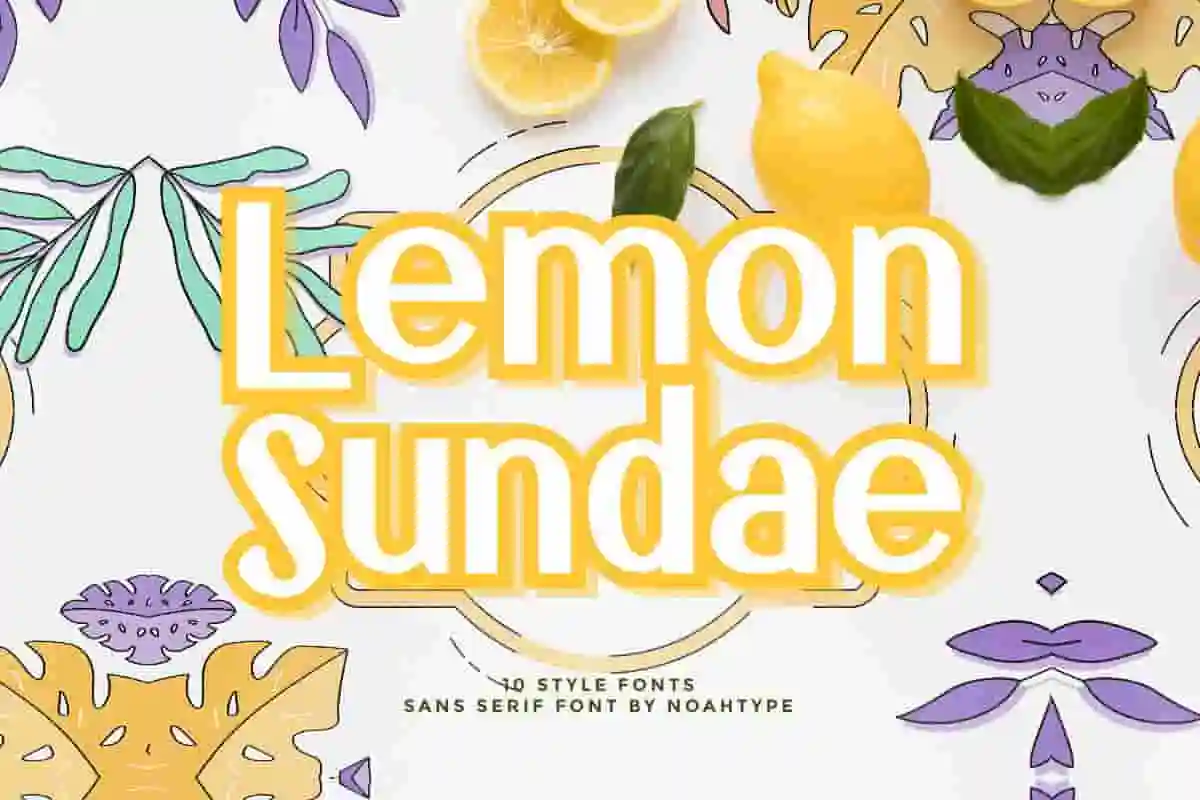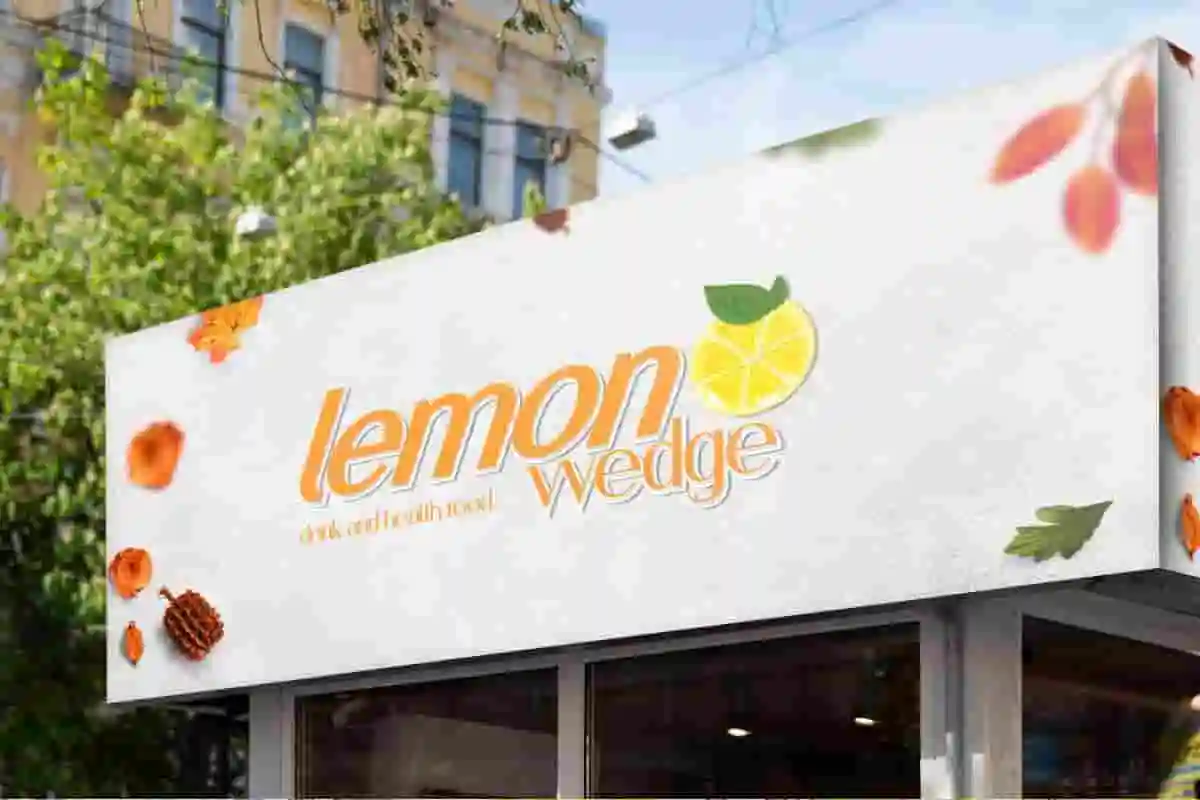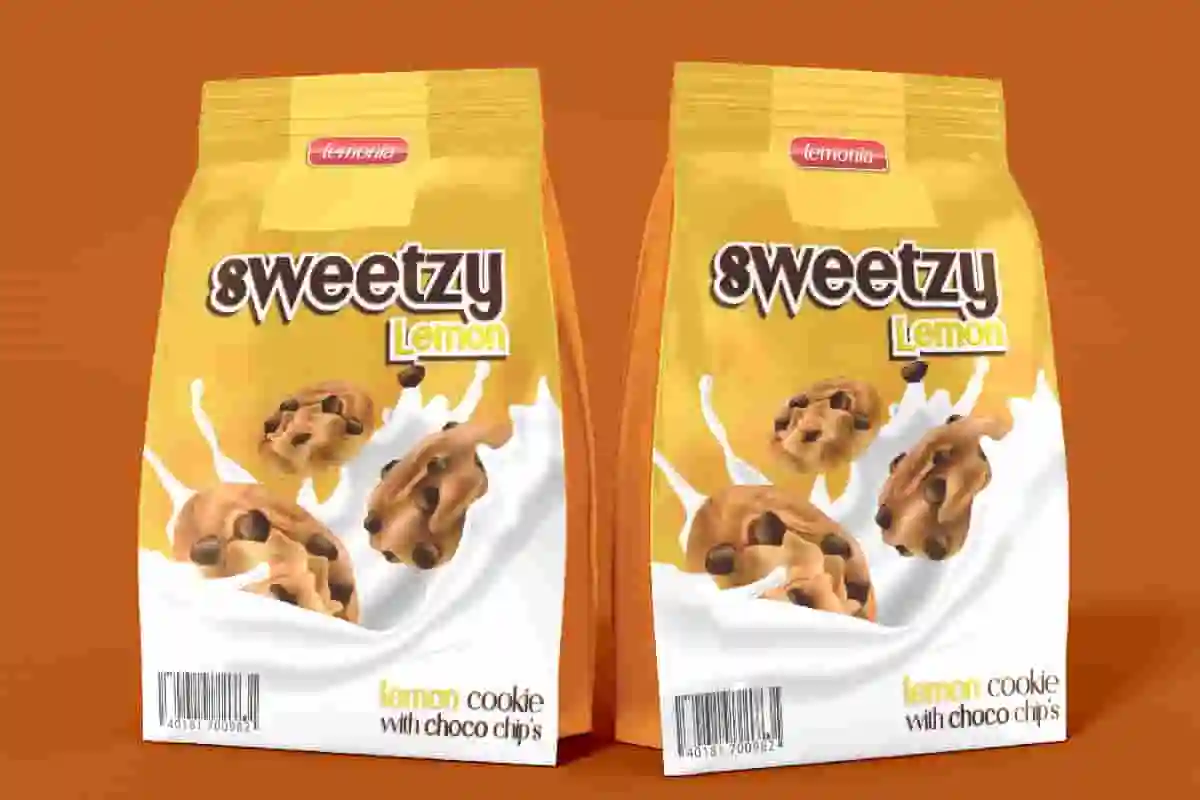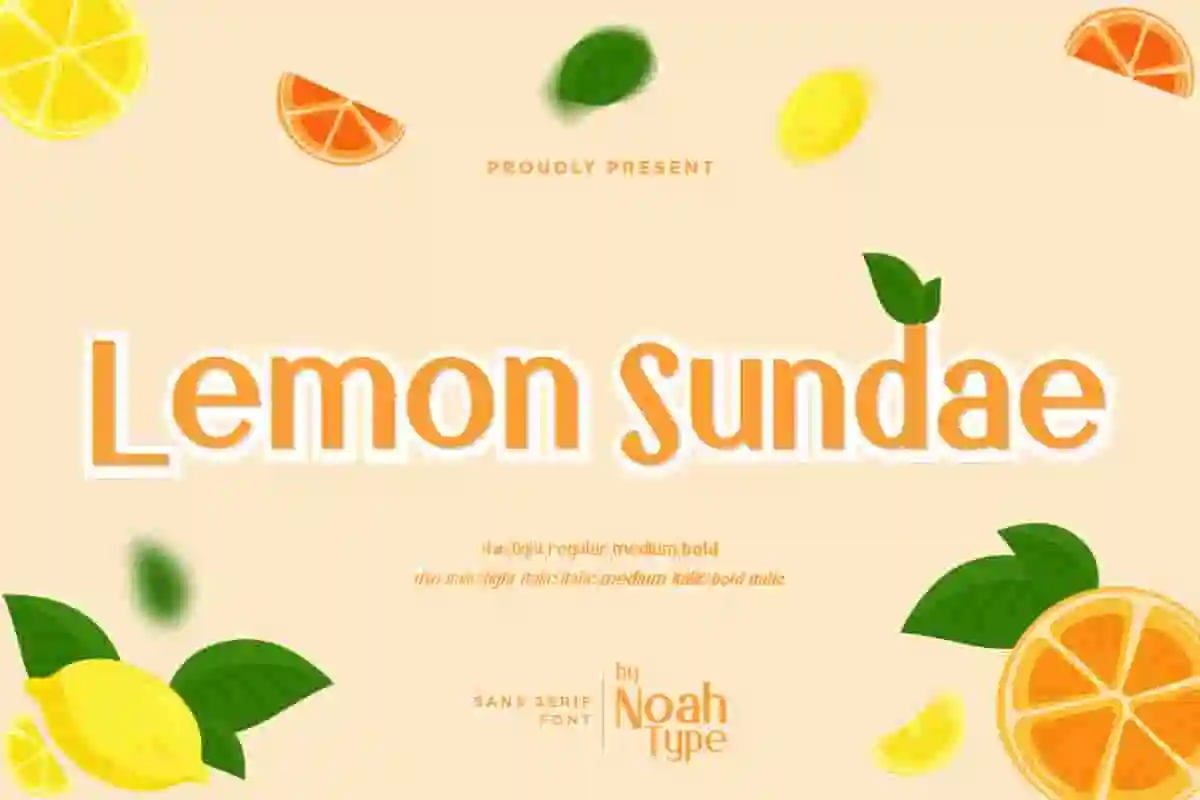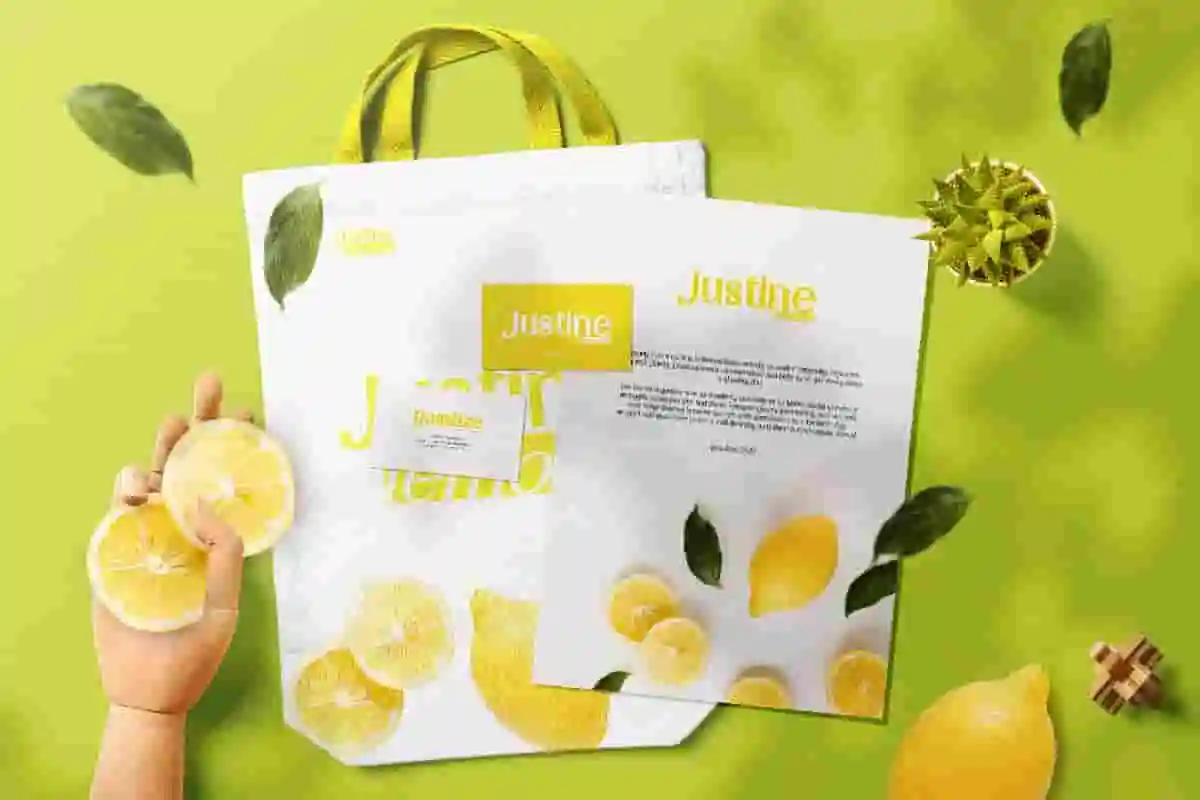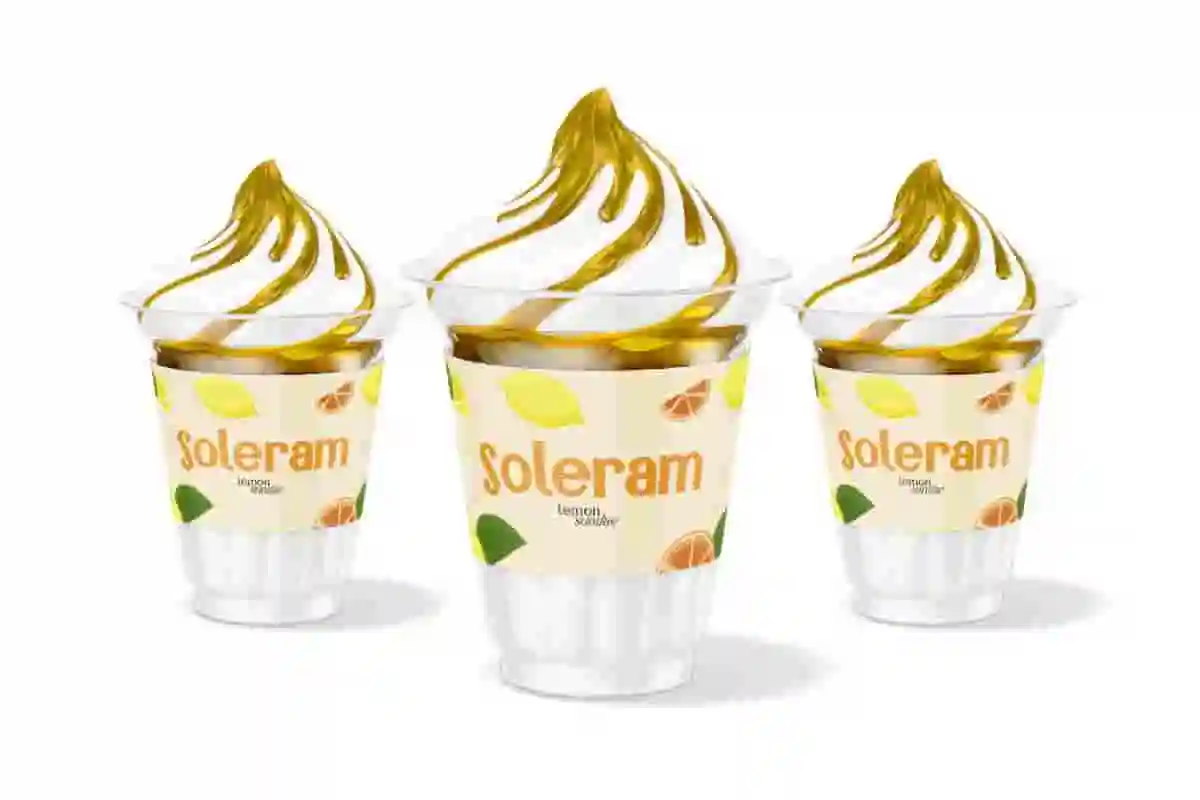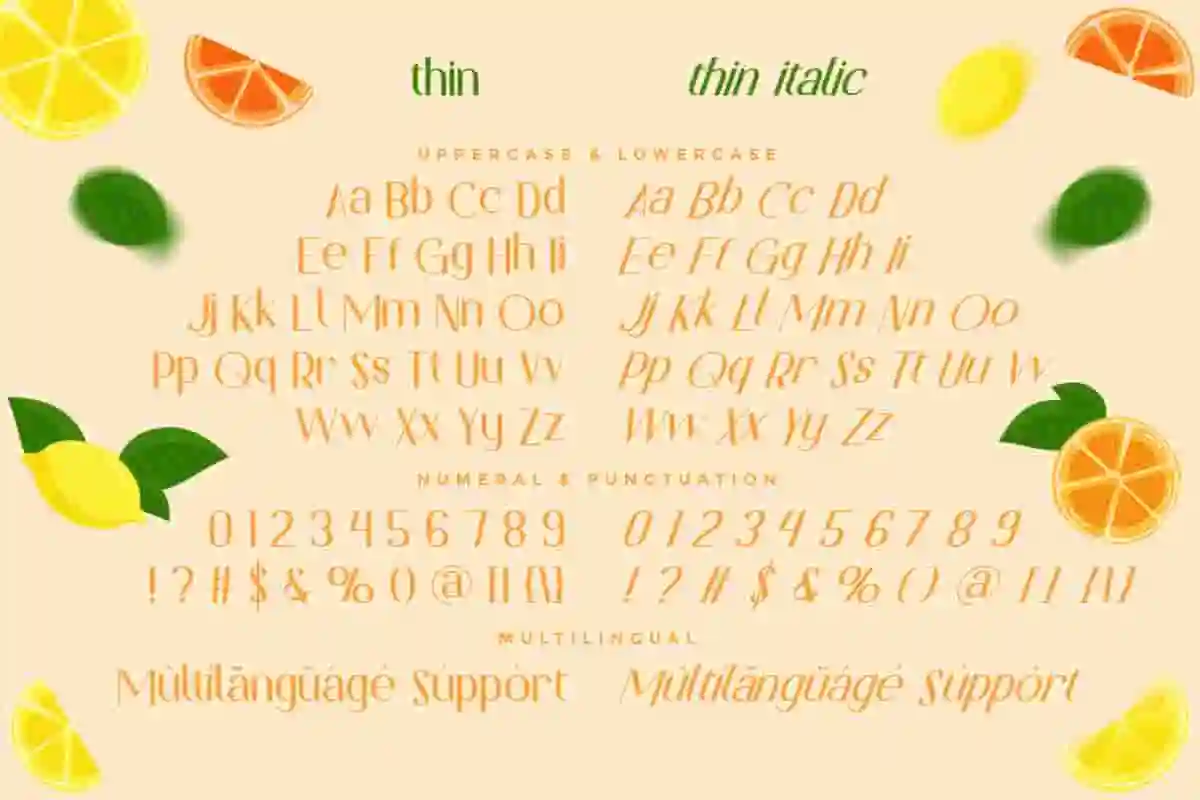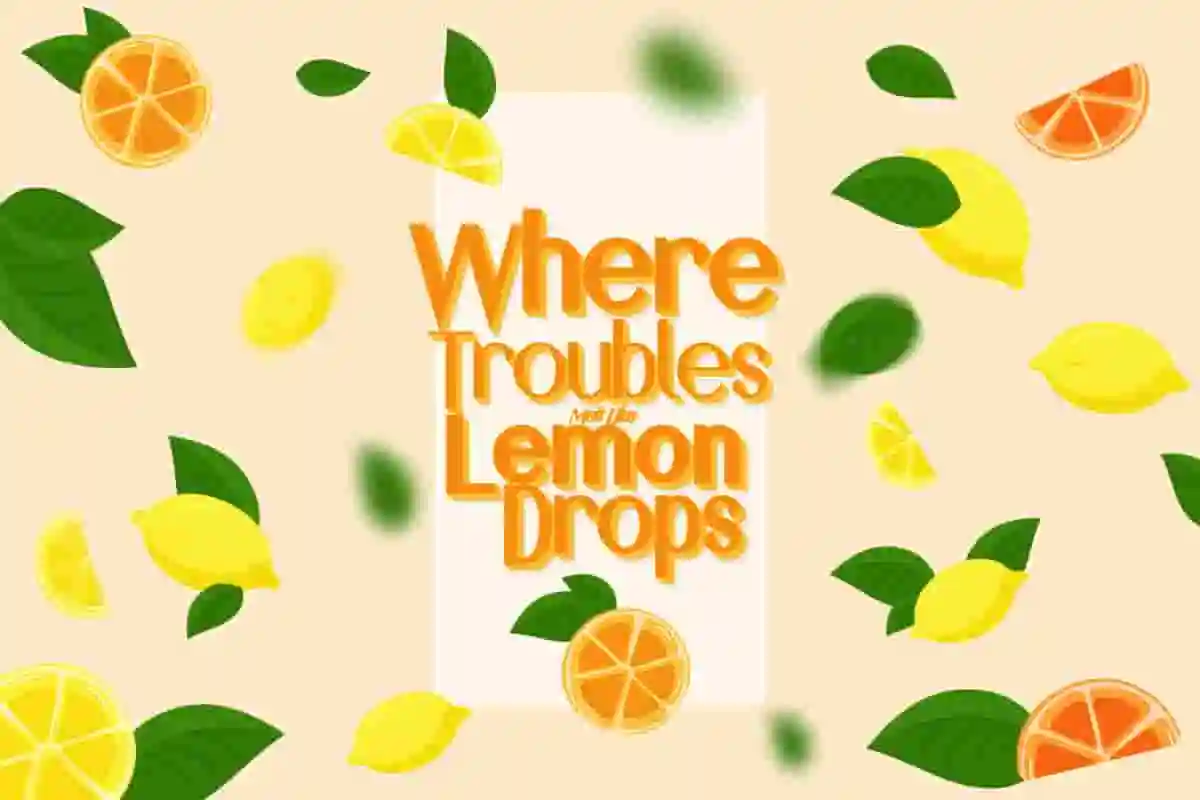
Lemon Sundae Font is a fresh modern sans serif font with ten weight/styles, exclusively crafted by NoahType. This font has ten styles that you can use on many occasions, namely regular, italic, thin, thin italic, light, light italic, medium, medium italic, bold, and bold italic. It will be the best choice for event organizer, publishing, printing, food and beverage, interior design, firniture, etc.
Lemon Sundae Font include full set of All Caps Basic Characters, Numerals and Punctuation. This font will be suitable for various projects such as poster, billboard, product packaging, custom design, business card, signage, invitation, brand logo, label, quote, web page, and more!
Looking for a font collection that adds instant charm and creativity to your designs? Lemon Sundae 10 Style Font is here to serve up a delicious dose of style. Packed with 10 unique font styles in one versatile bundle, this typeface is perfect for designers, crafters, and creatives who want to make their work stand out effortlessly.